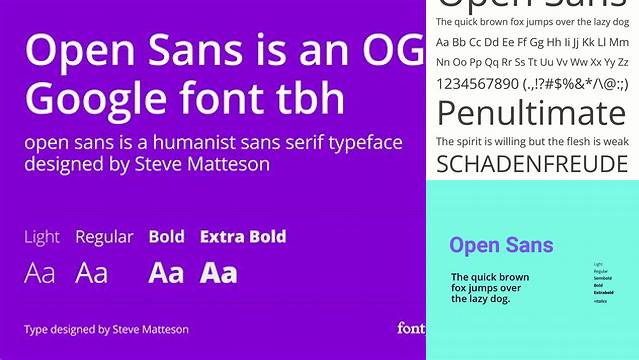
Open Sans Font: Using Google Fonts Via Href
Hey guys! Ever wondered how to embed that sleek Open Sans font into your website using Google Fonts? It’s super easy, and I'm here to break it down for you. We'll be diving deep into using the href attribute to link the Google Fonts stylesheet, specifically targeting the Open Sans family. Trust me, by the end of this article, you'll be a pro at font embedding!
What is Open Sans and Why Use It?
Before we jump into the technical stuff, let's chat about Open Sans. This font is a humanist sans-serif typeface designed by Steve Matteson and commissioned by Google. It's known for its clean, friendly, and highly legible appearance, making it a fantastic choice for websites, documents, and pretty much anything else. Its open forms and neutral-yet-approachable style make it incredibly versatile. Using Open Sans can significantly improve the readability and overall aesthetic of your site. Imagine a website that's not only informative but also visually pleasing – that’s the power of a good font! Plus, it's free to use through Google Fonts, which is a major win for everyone. So, if you're looking for a font that’s both professional and inviting, Open Sans is definitely a top contender. You can use it for headings, body text, or even call-to-action buttons. The possibilities are endless!
Understanding Google Fonts and the href Method
Okay, let's get a bit technical. Google Fonts is a library of hundreds of free and open-source fonts that you can use on your website. The easiest way to include these fonts is by linking them in your HTML using the <link> tag with the href attribute. This method tells the browser to fetch the font stylesheet from Google's servers. Think of it like ordering a pizza online – you're giving the browser the instructions (the href link) to get the pizza (the font) from the restaurant (Google Fonts). The beauty of this method is that it's straightforward and efficient. The browser downloads the font files, and your website can start using them right away. No need to download font files manually or mess with complex configurations. It's all handled by Google's servers, ensuring fast and reliable delivery of your fonts. This is particularly important for maintaining a fast-loading website, which is crucial for user experience and SEO.
Diving Deeper: Open Sans Styles and Weights
Open Sans comes in a variety of styles and weights, giving you lots of flexibility in how you use it. You've got the regular Open Sans, but there's also Open Sans Light, Open Sans Bold, Open Sans Extra Bold, and even italic versions of each. Each weight (like 300, 400, 600, 700) represents a different thickness of the font. The lighter weights (like 300) are great for headings or accents, while the regular weight (400) is perfect for body text. The bolder weights (600, 700, 800) are ideal for emphasizing key parts of your content, like headlines or calls to action. When choosing which styles to include, think about how you want to use Open Sans on your site. Do you need a light weight for a modern, airy feel? Or a bold weight to make certain elements really pop? Balancing the styles you include is key to keeping your site looking polished and professional. Too many styles can slow down your site's loading time, so choose wisely!